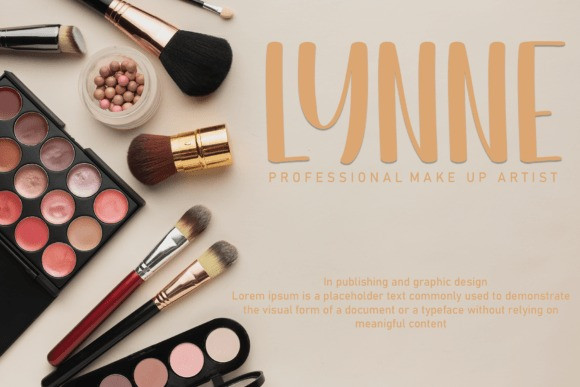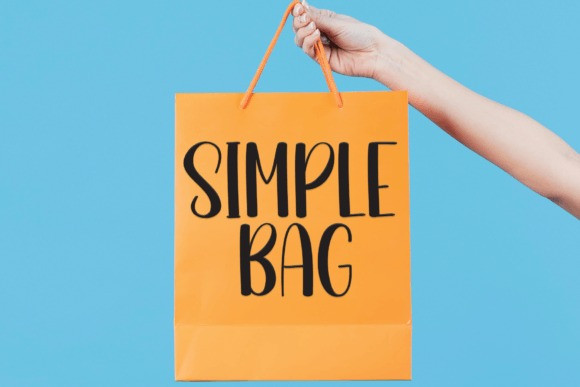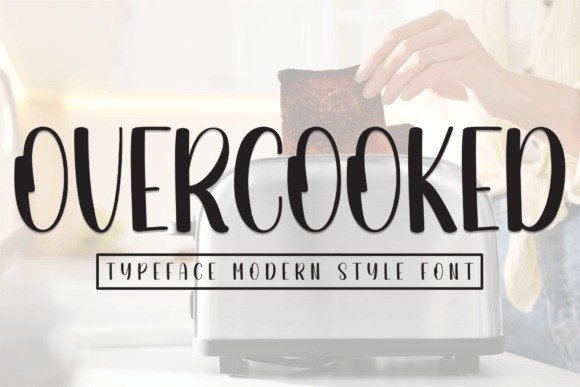
Overcooked Font
Overcooked Font is a sweet and friendly handwritten font. Fresh and neat, this font is ideal for writing wedding invitations, cards, or any other design that might need a fun touch.